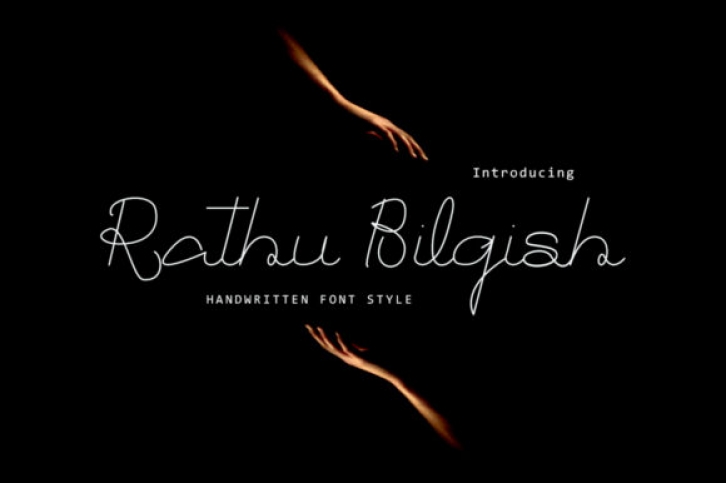
Rathu Bilqish simplifies elegance into one truly outstanding handwritten font. Whether it’s for web, print, moving images or anything else this font will look spectacular.